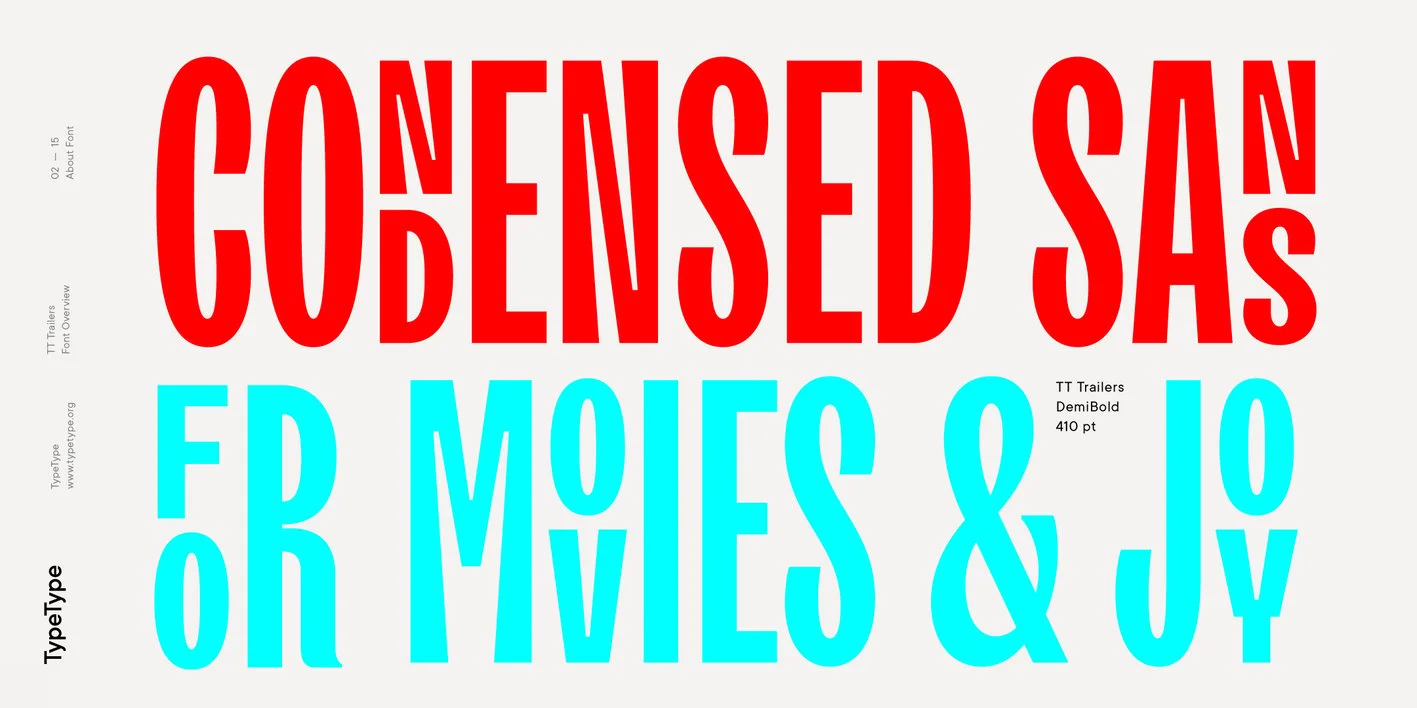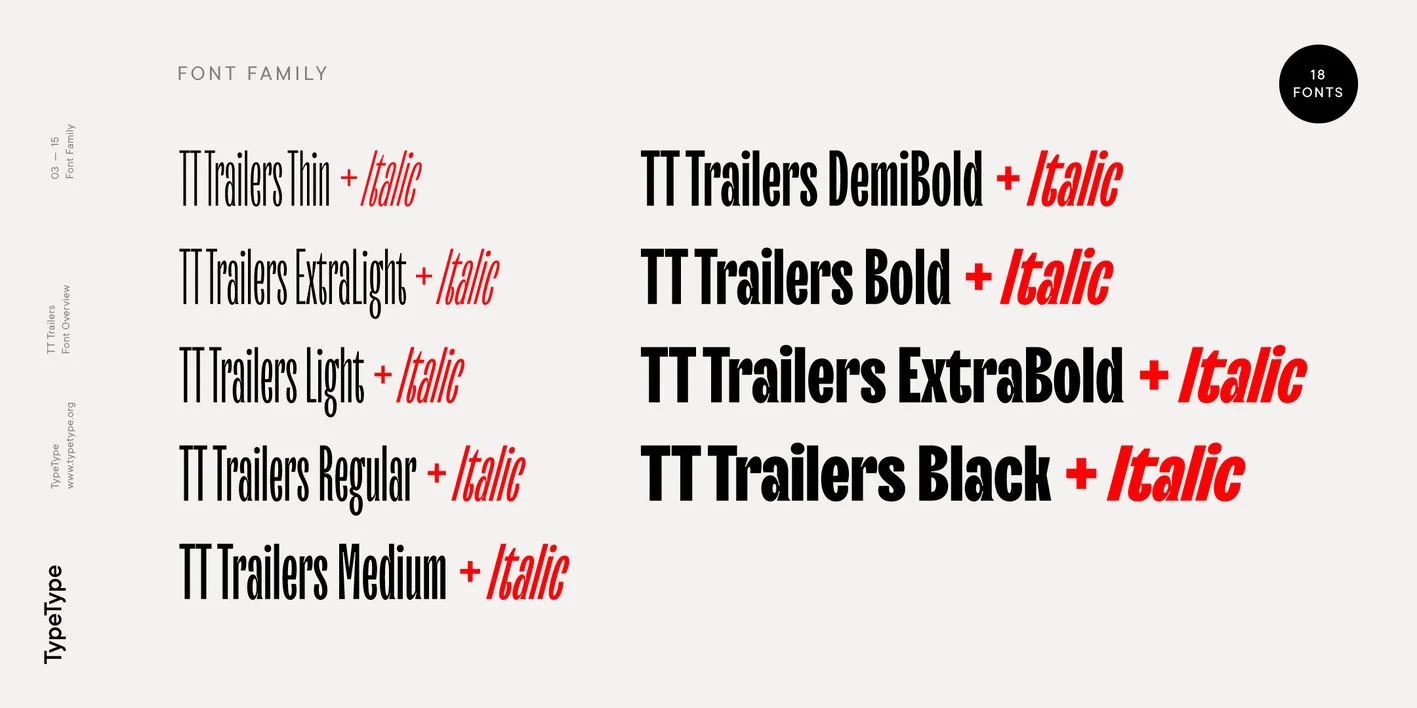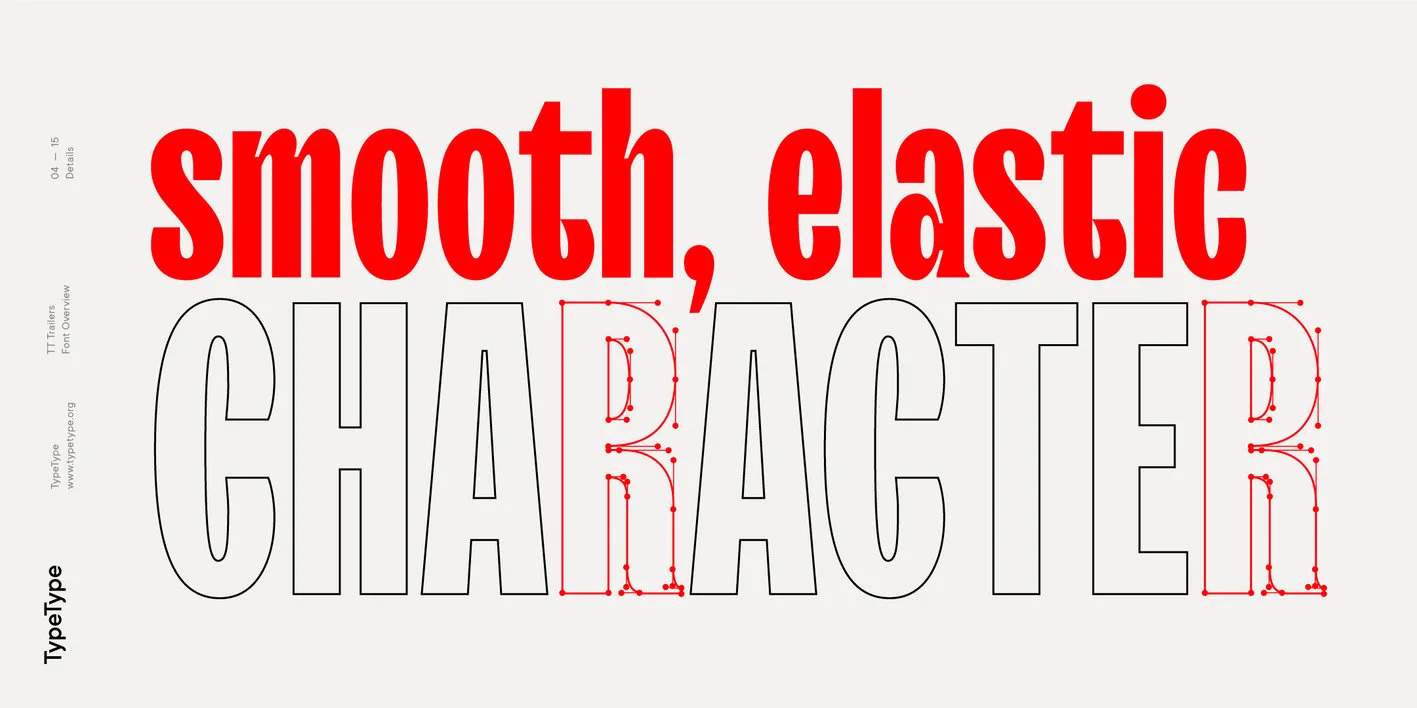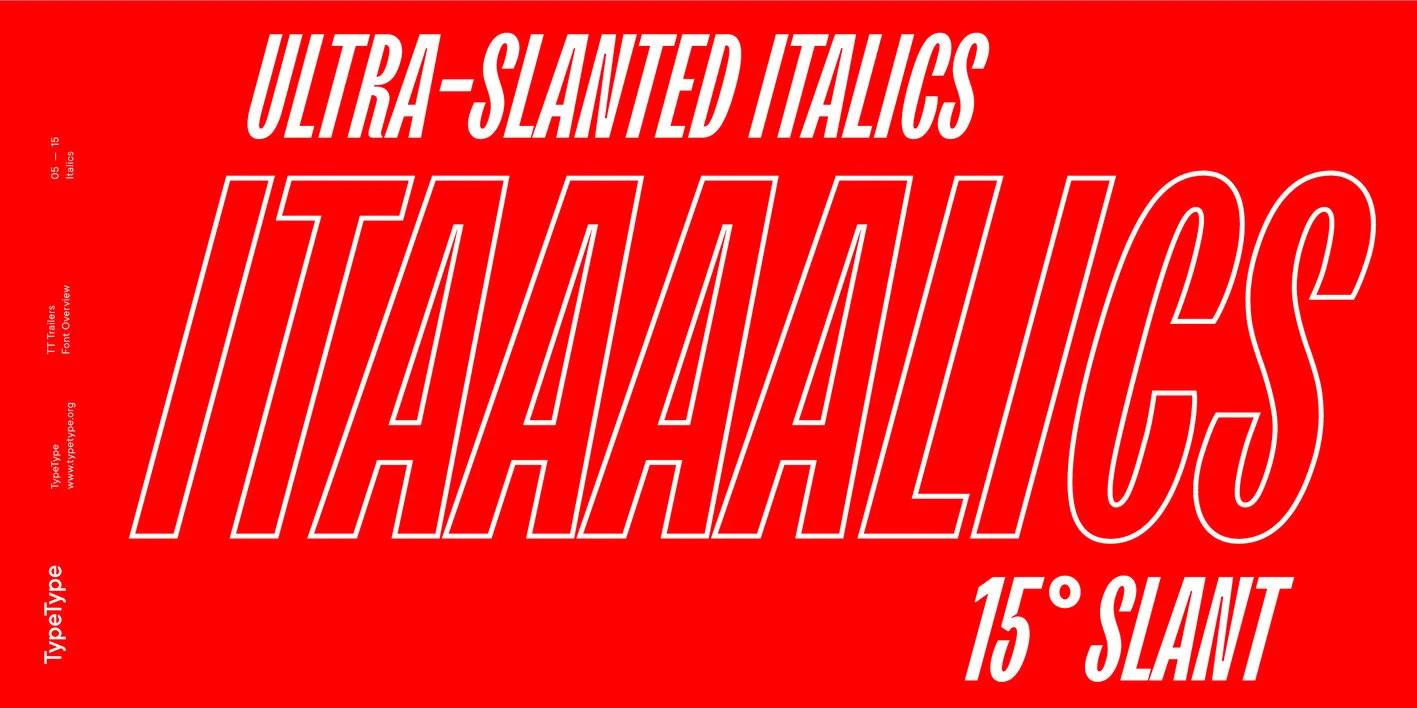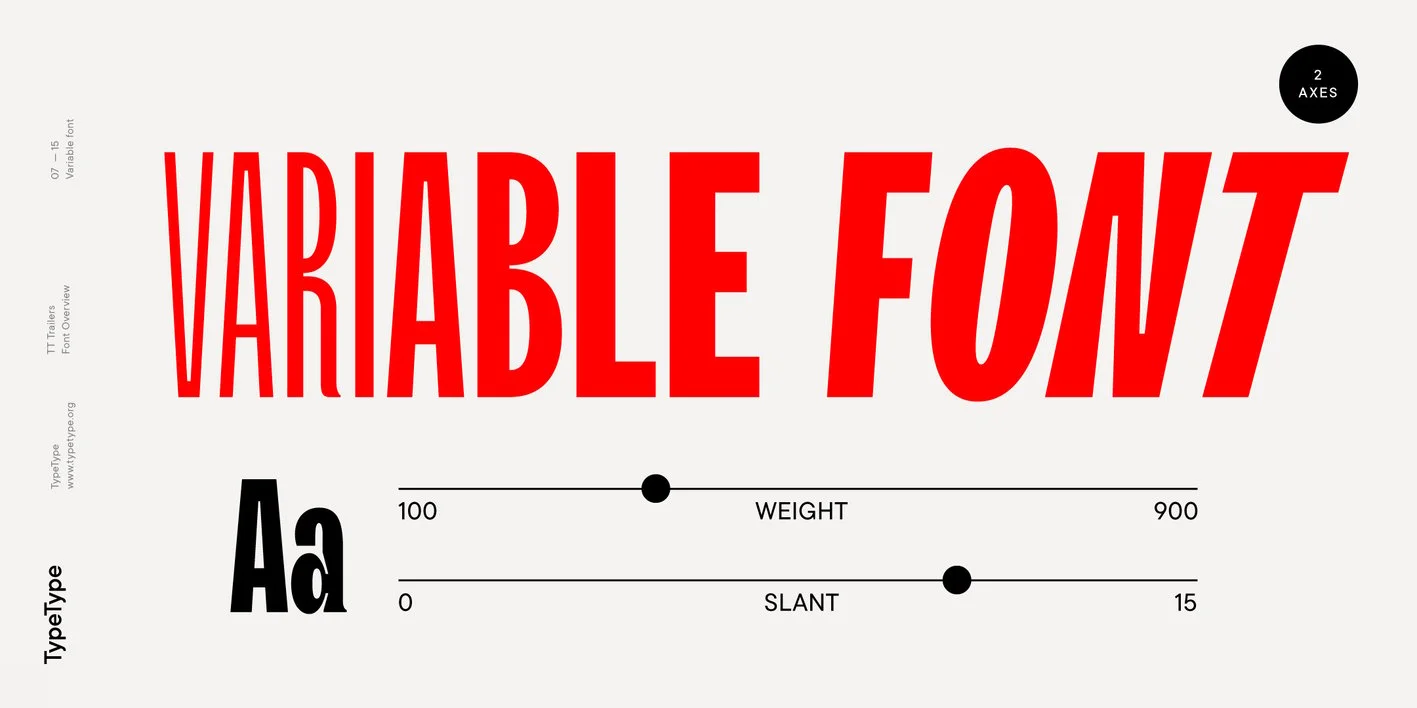
TT Trailers Font
A good typeface communicates tone before a single word is read. TT Trailers achieves this through a confident voice that adapts to diverse briefs. The typeface brings a versatile sensibility to a broad range of creative disciplines, with consistent type colour across continuous text that holds up whether the work is print-first or screen-first.
In practice, TT Trailers proves particularly effective for logo design, editorial layouts, web design, product labels, brand identity systems. Designers reaching for it find that the type decisions feel resolved rather than laboured — a useful quality when client timelines are tight.
The range of applications extends to poster creation, packaging design, social media graphics, advertising campaigns. That breadth is deliberate: the proportions and spacing were stress-tested across a wide range of mock briefs before the typeface was finalised.
Graphic designers working on identity systems find TT Trailers a reliable choice for projects that demand both personality and restraint. The design avoids the self-conscious quirkiness that dates quickly, settling instead for considered distinctiveness that holds up over time.